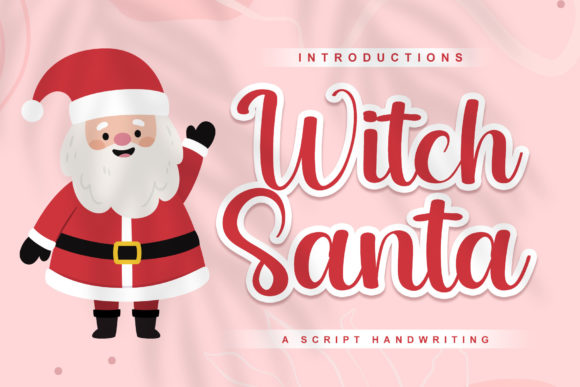
Indulge in the enchanting world of Witch Santa, an exquisite handwritten font that will weave a spellbinding charm over your Christmas letters. Its finely crafted strokes evoke the spirit of the season, effortlessly capturing the warmth and magic of the holidays.
With Witch Santa, you'll have the perfect font to create one-of-a-kind Christmas cards, festive invitations, heartwarming gift tags, and enchanting social media posts. Its contemporary allure and timeless calligraphic essence make it a versatile choice for any Christmas-themed project.
Let Witch Santa transport you to a realm of festive creativity where your imagination knows no bounds. Bring your Christmas creations to life with this captivating font that will leave an unforgettable mark on everyone who reads it. Embrace the magic of Witch Santa and make this Christmas truly special.
Created by the talented YanStudio, Witch Santa is a testament to their passion for creating fonts that inspire and empower. Join the many who have fallen in love with this enchanting font and elevate your Christmas letters to new heights. Download Witch Santa today and let the Christmas magic begin!